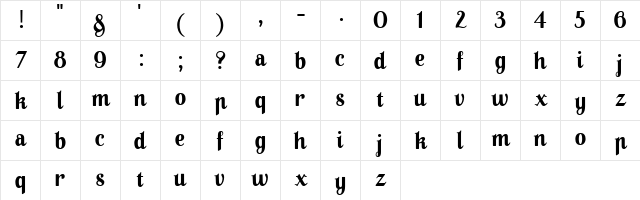
A Pompadour Display Sample Regular
Foundry: Ana Parracho
Designer: Ana Parracho
Design Context for A Pompadour Display Sample
A Pompadour Display Sample is built around its visual character rather than neutral utility - its distinctive forms are designed to make an impression at display sizes.
Font Pairing: Pair with a clean neutral sans-serif for body copy to let A Pompadour Display Sample's character lead without overwhelming the composition.
Pro Tip: Use A Pompadour Display Sample exclusively at display sizes - it was designed to be seen, not read at length. Let a neutral companion handle body copy.
Who designed the A Pompadour Display Sample Regular font?